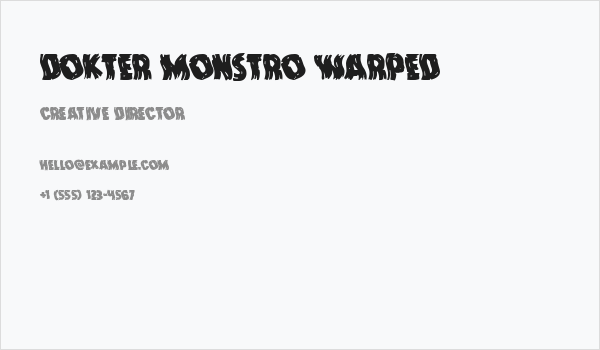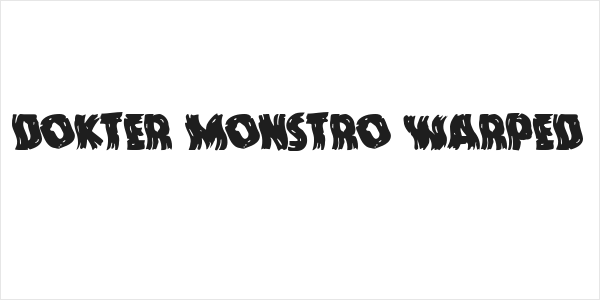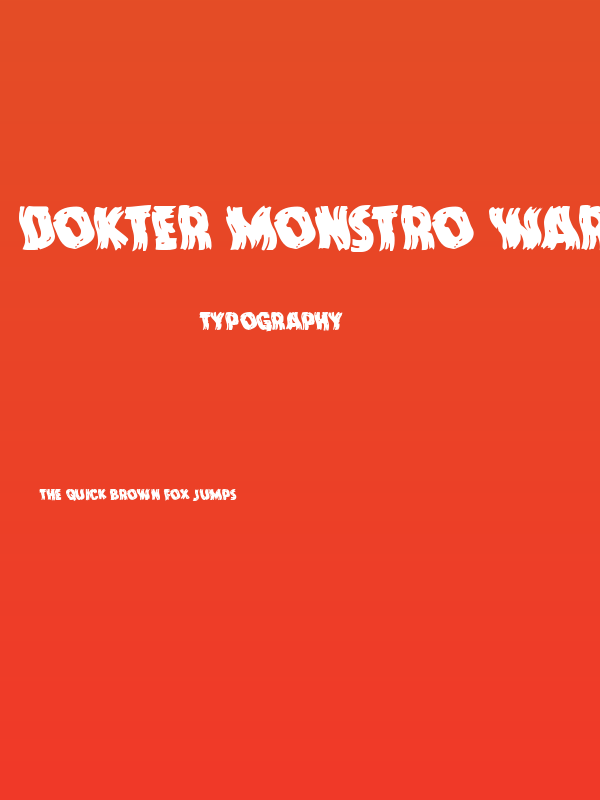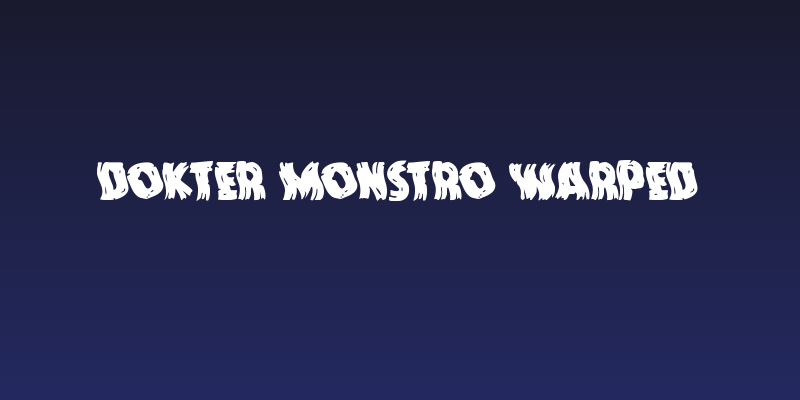
Dokter Monstro Warped Font
Dokter Monstro Warped Description
This font features a bold, distorted style with exaggerated, jagged edges that give it a monstrous and warped appearance. The characters are heavily stylized, with irregular shapes and varying thicknesses, creating a chaotic and dynamic visual impact. The uppercase and lowercase letters maintain a consistent theme of distortion, while the numbers and special characters follow suit with similar warped characteristics. This font is designed to stand out and grab attention, making it ideal for projects that require a dramatic and unconventional look.